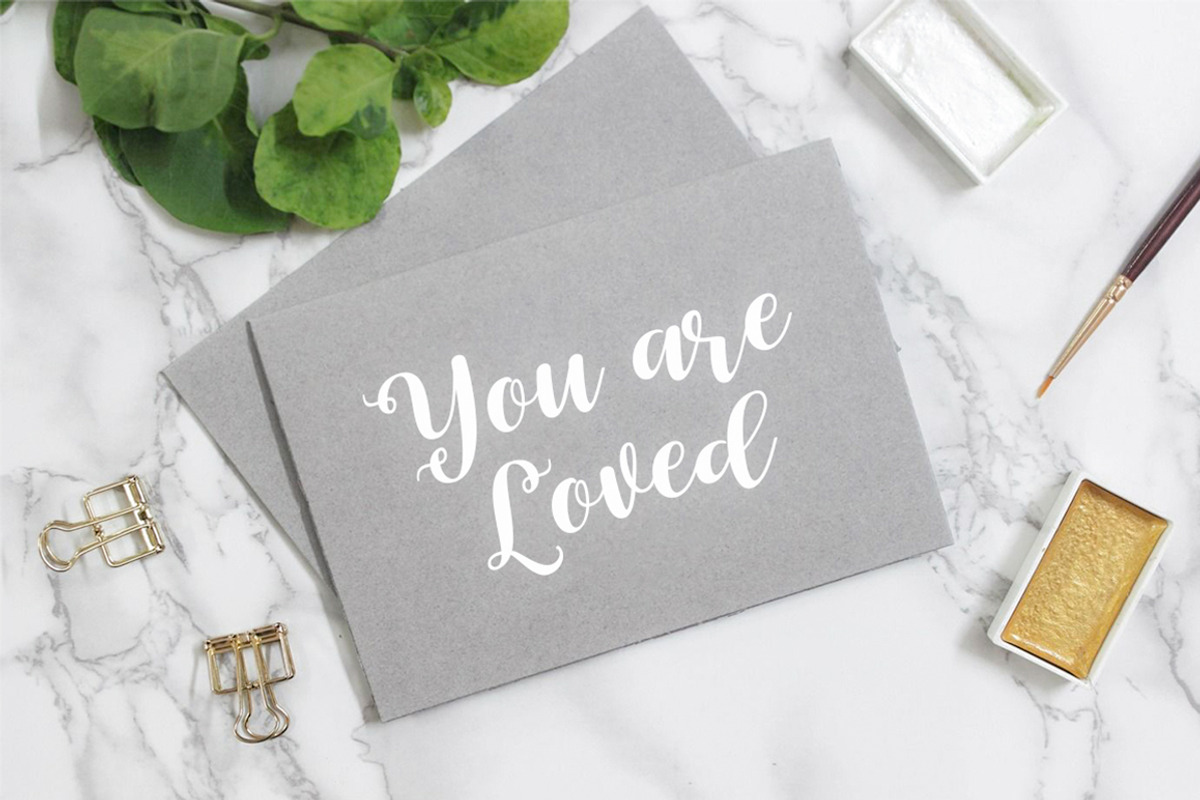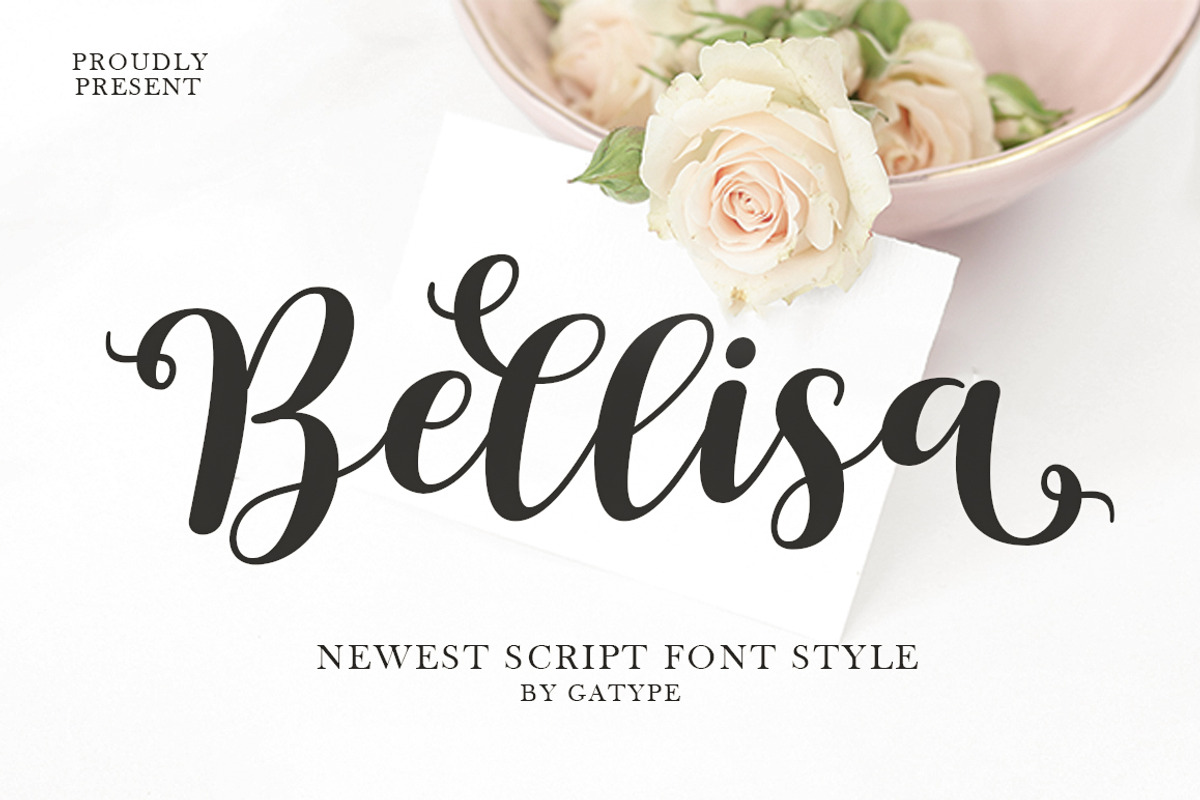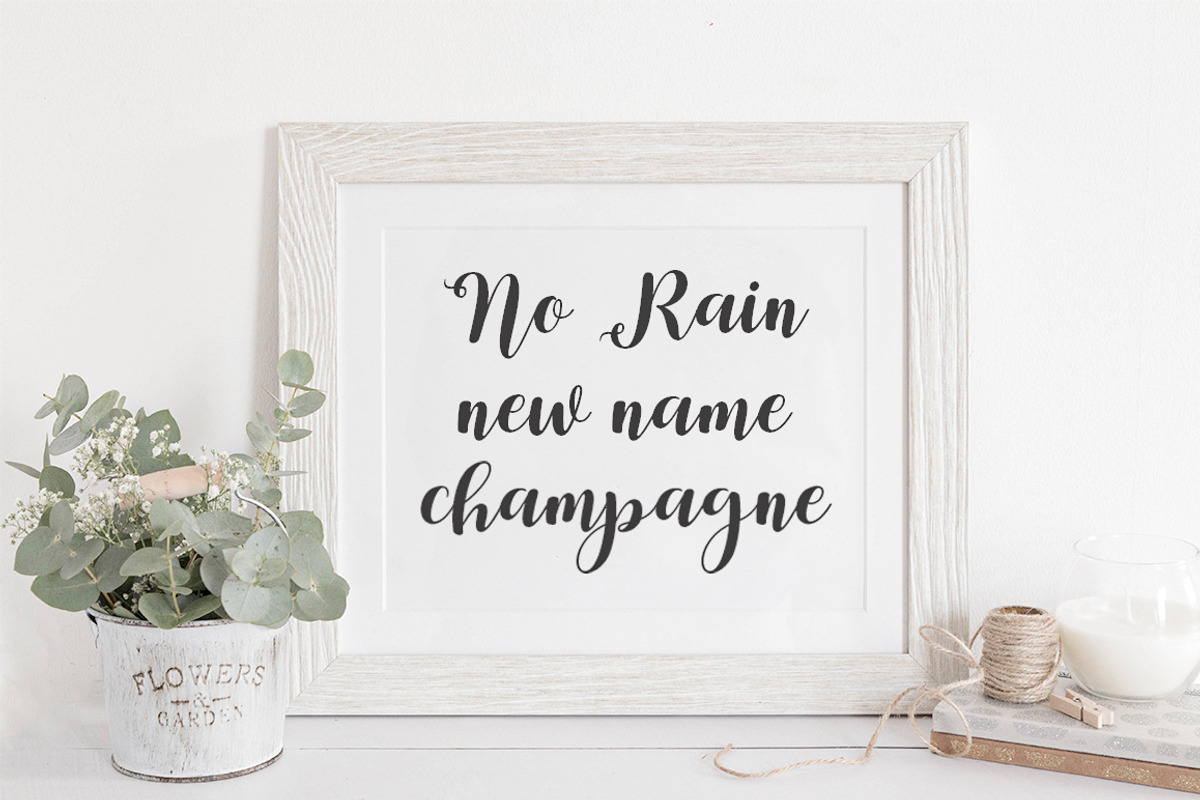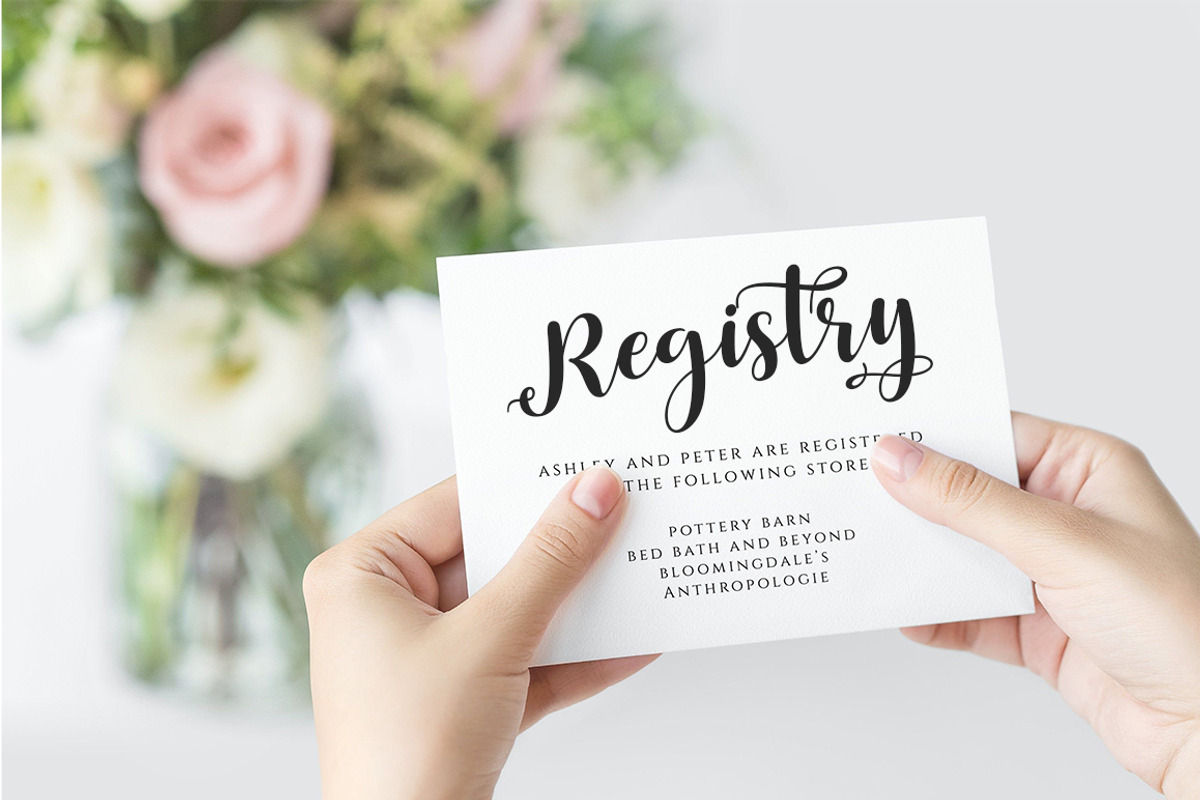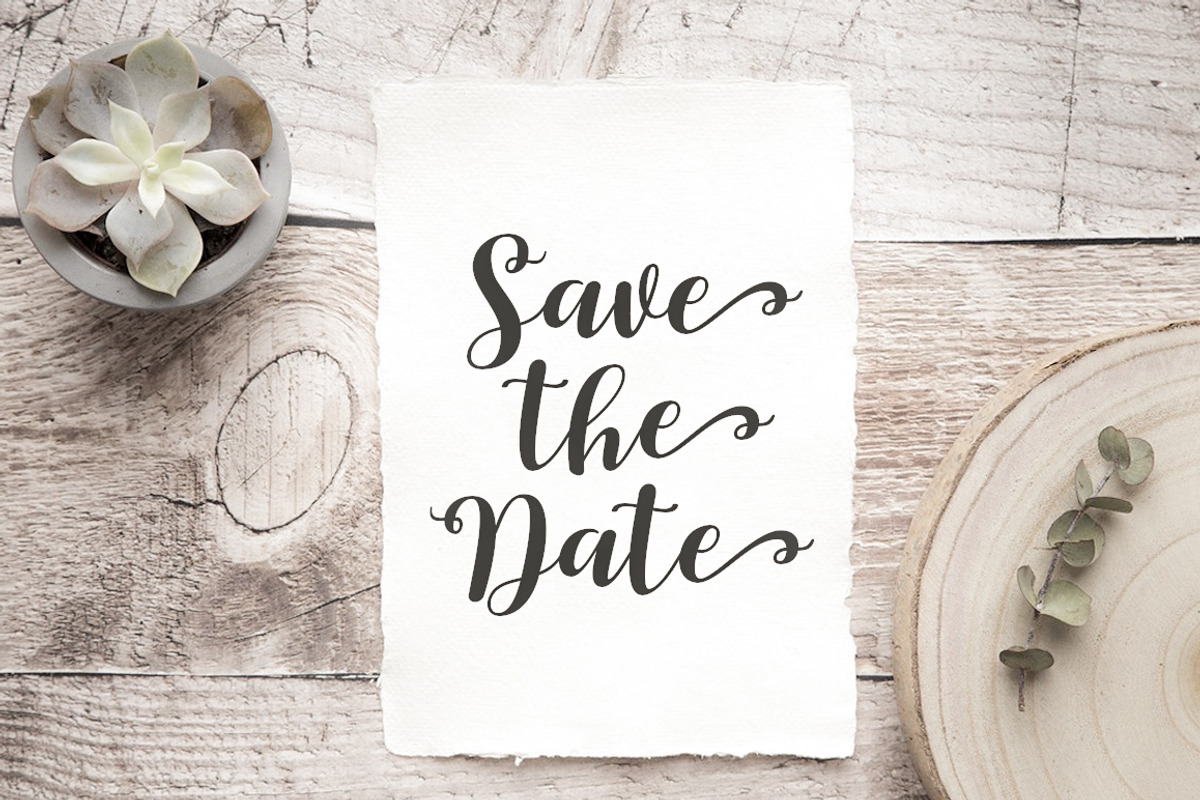
Bellisa
Bellisa is a cursive script font. With bold contrasting strokes, a playful character with a bit of binder and alternatives. To give you extra creative work.. This font is great for logo designs, Social Media, Movie Titles, Book Titles, short text even long text letters and is great for your secondary text fonts with sans or serif. Create stunning masterpieces with Bellisa fonts. contains a full set of lowercase and uppercase letters, a wide variety of punctuation marks, numbers, and multilingual support. Bellisa comes with 342 glyphs. Alternate characters are divided into several Open Type features such as ,Alternative Style. The Open Type feature can be accessed using intelligent Open Type programs such as Adobe Illustrator, Adobe InDesign, Adobe Photoshop version of Corel Draw X, and Microsoft Word. And this Font has provided PUA unicode (custom coded font). so that all alternative characters can be easily accessed in full by a craftsman or designer.